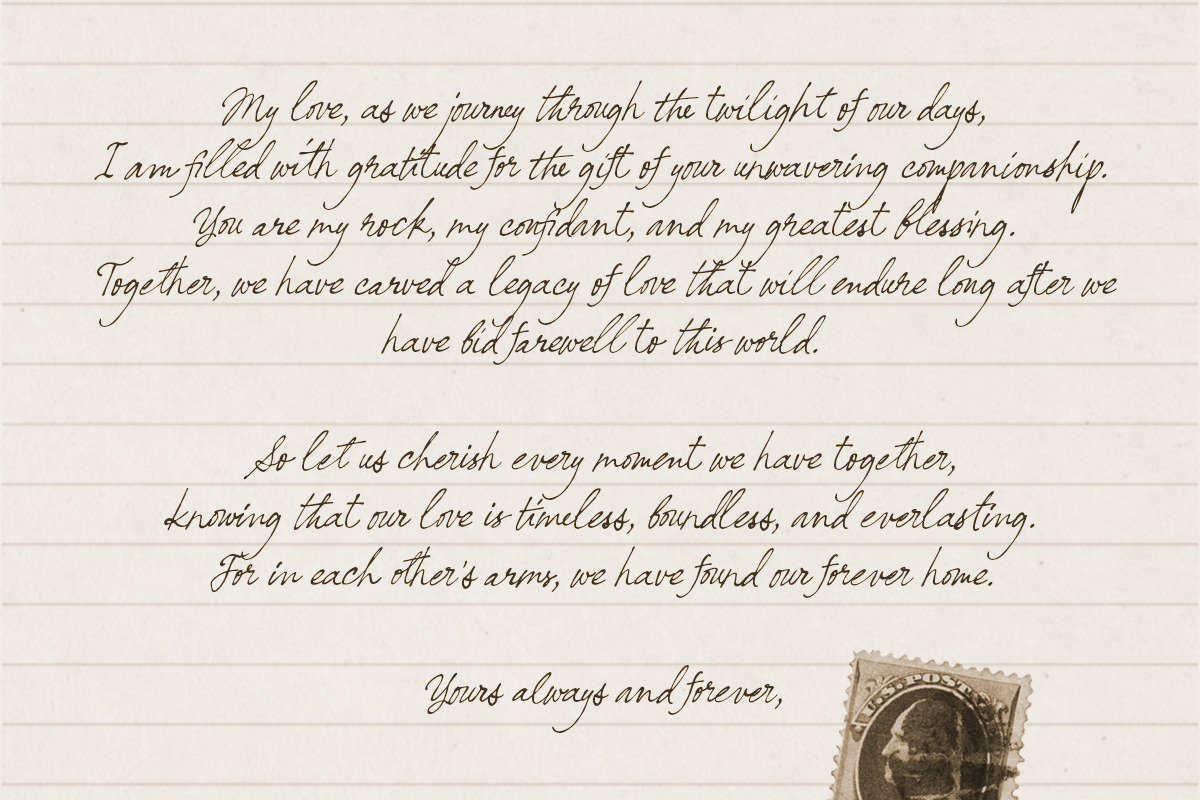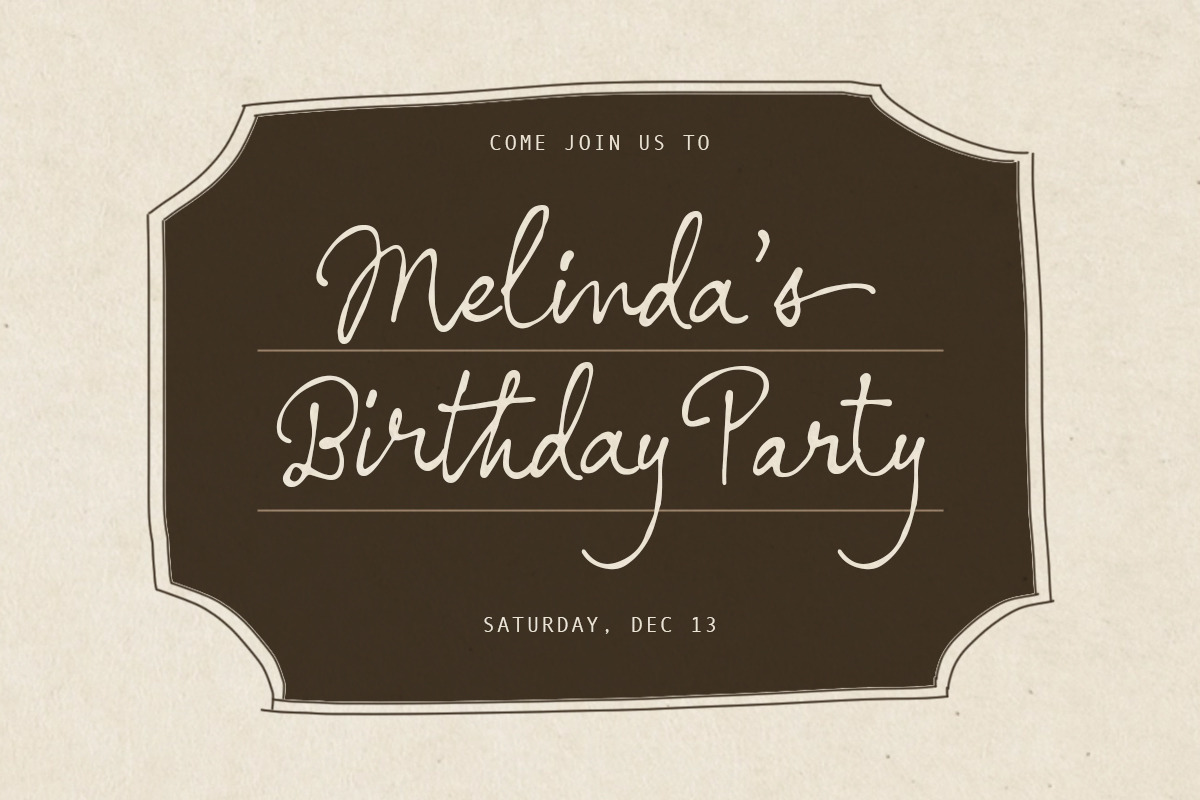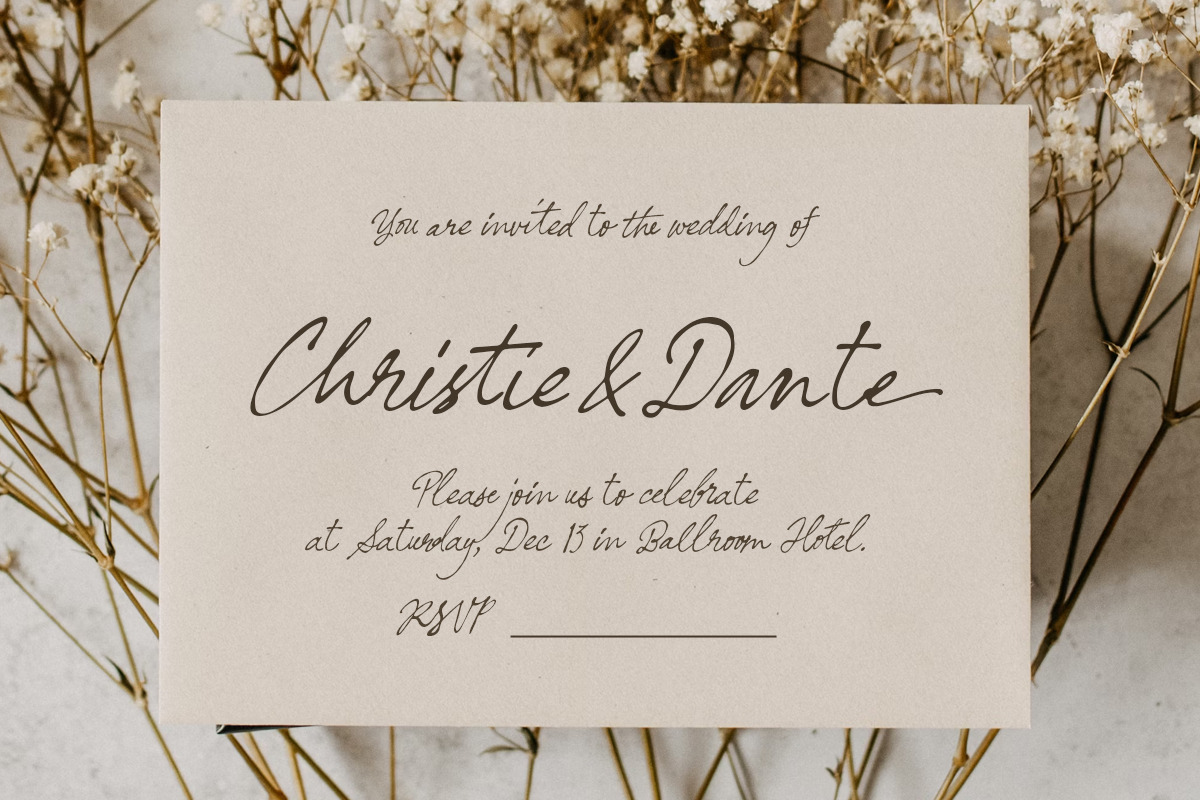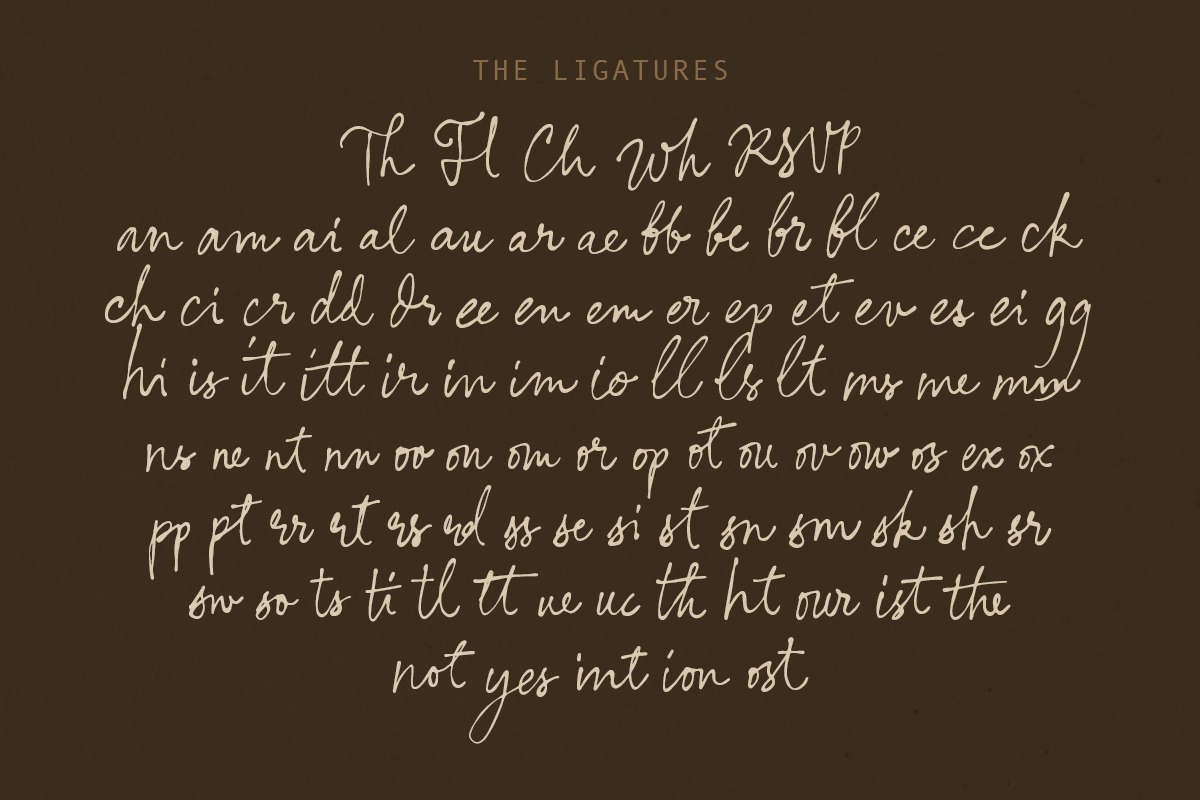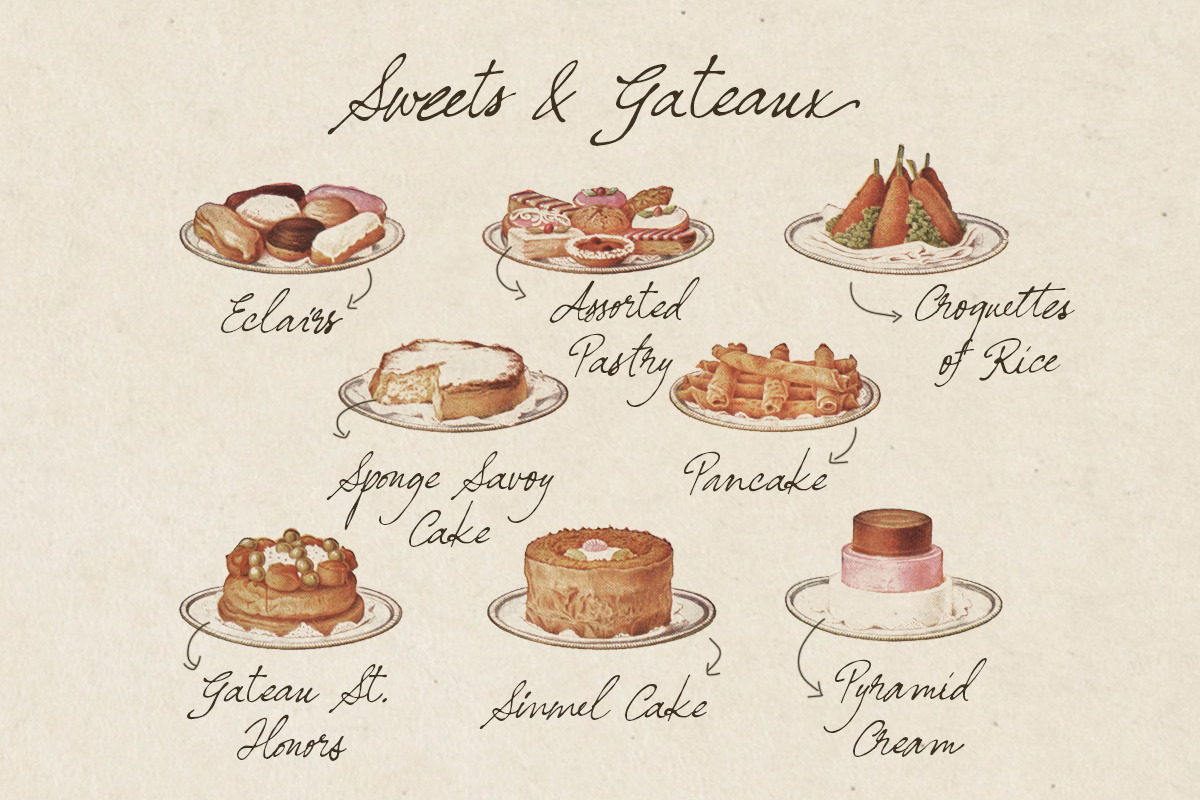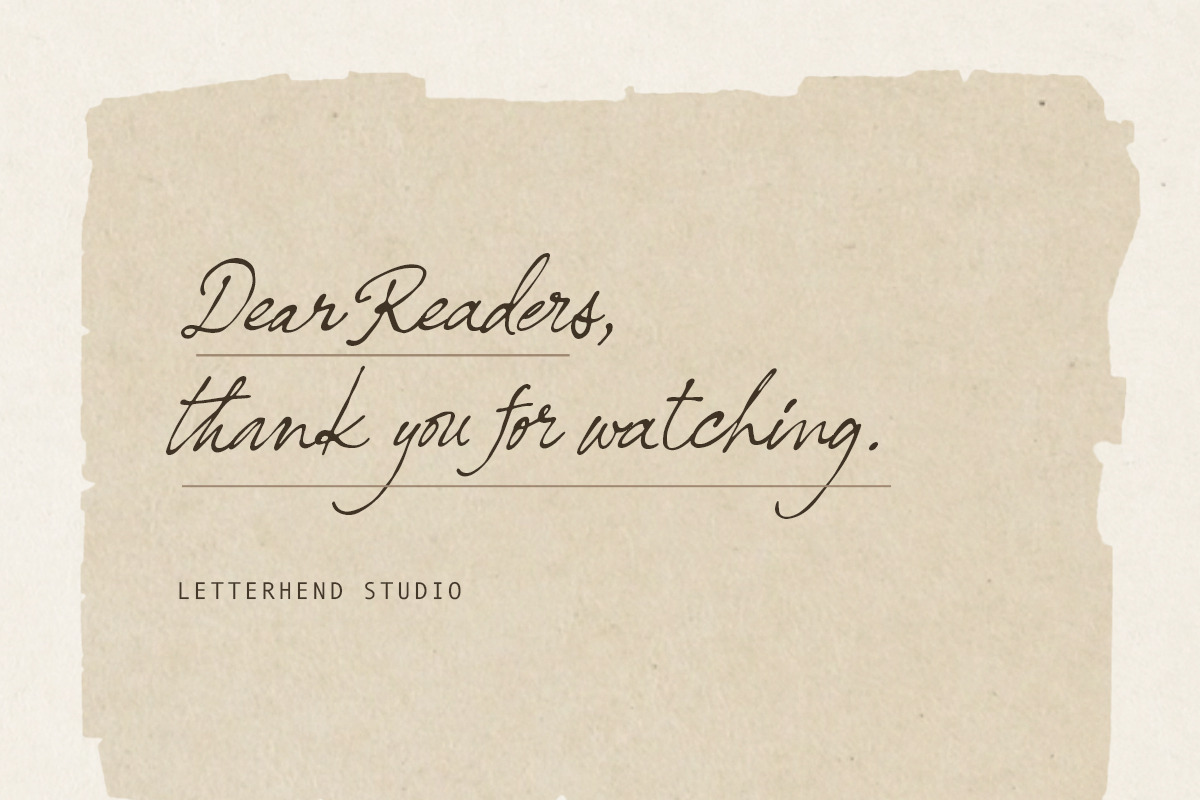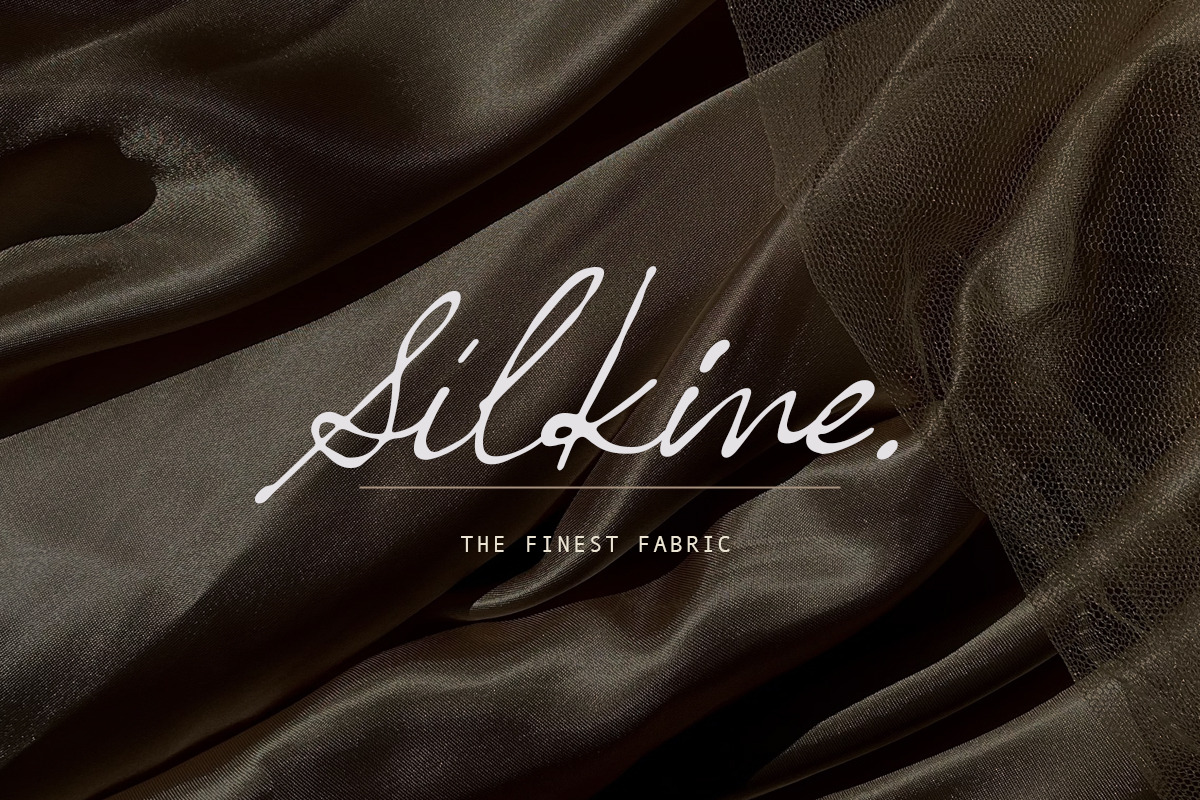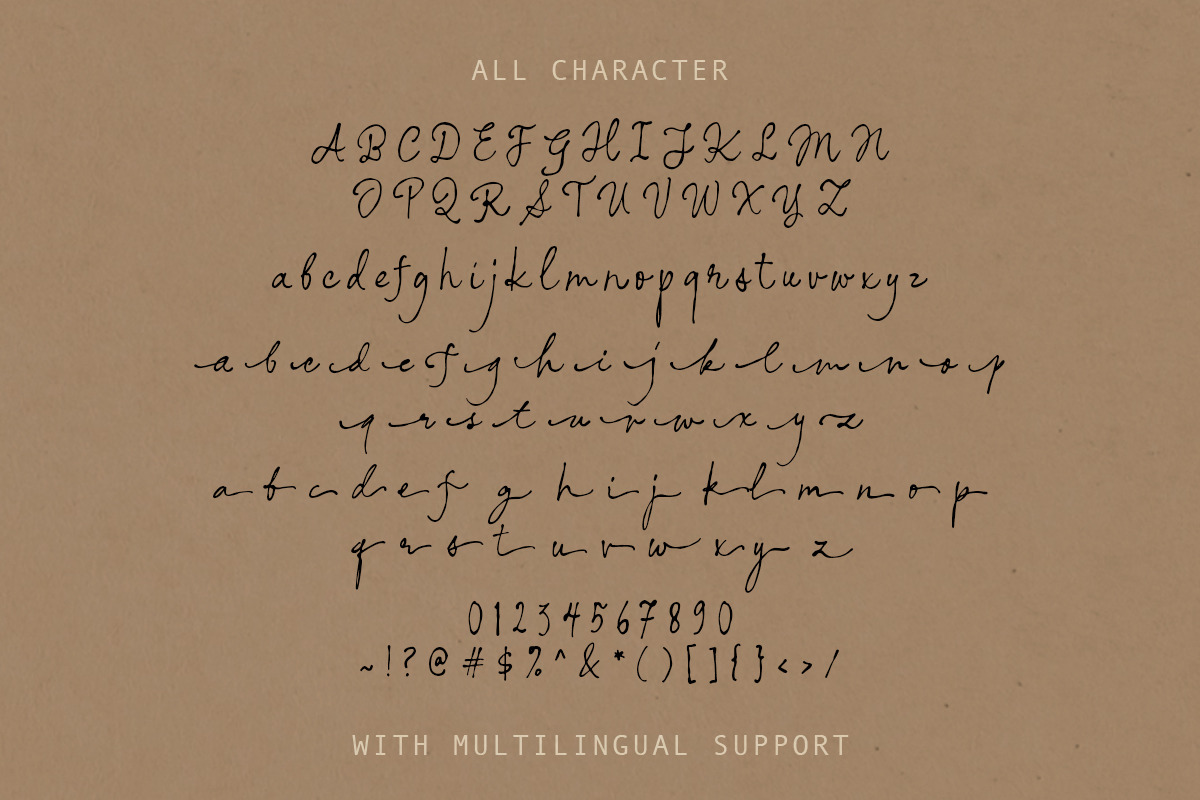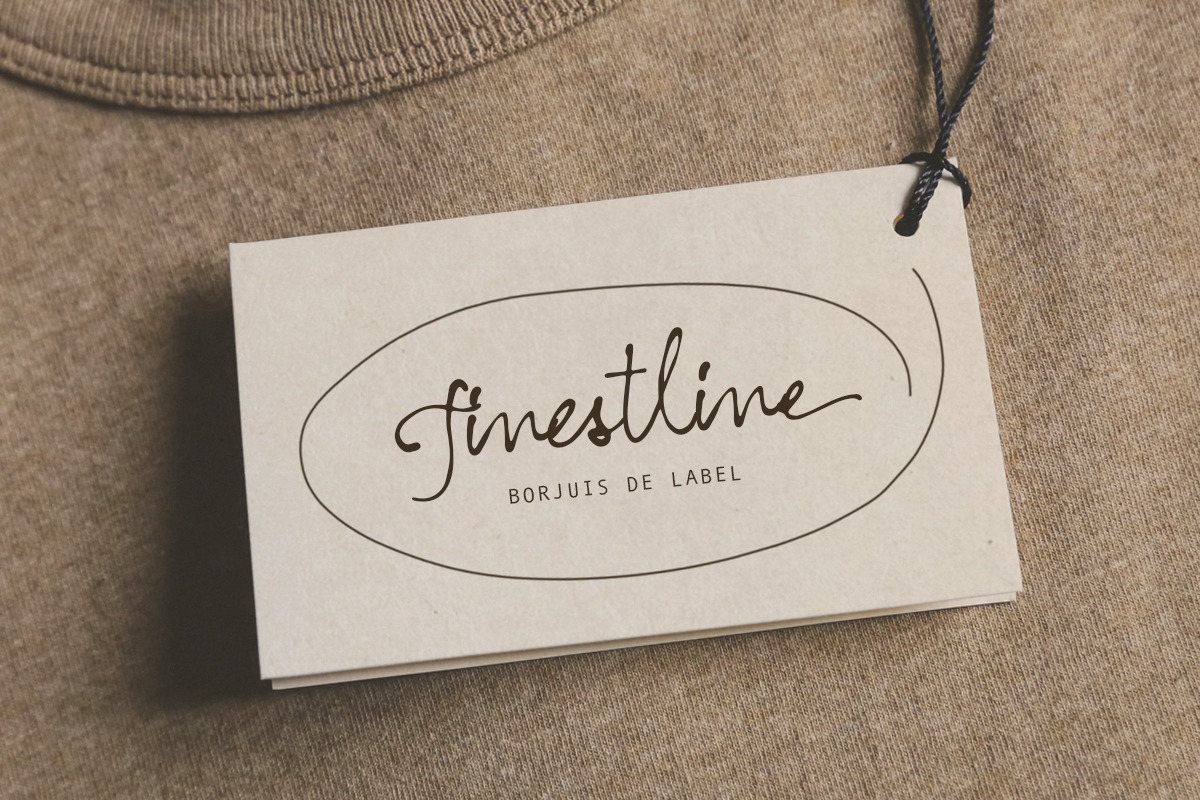
Nostalgic Words Vintage Signature
Nostalgic Words is a vintage signature script based on manual hand writing. This typeface comes with ligatures and alternates. This type of font perfectly made to be applied especially in logo, and the other various formal forms such as invitations, labels, logos, magazines, books, greeting / wedding cards, packaging, fashion, make up, stationery, novels, labels or any type of advertising purpose.